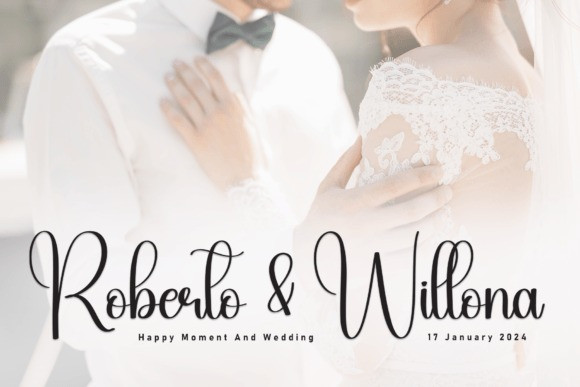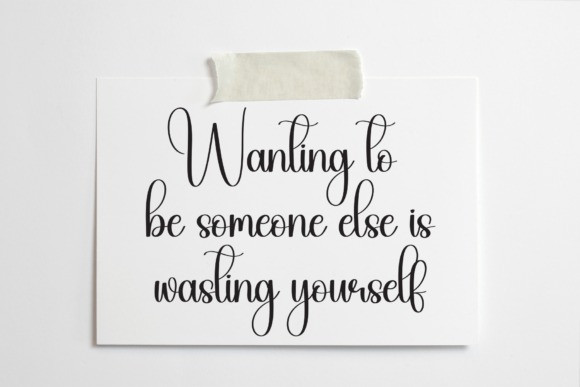
Thankful Script Font
Thankful Script Font is a fun and versatile handwritten font. Whether you’re using it for crafting, digital designing, presentations, or greeting card making, it’s perfect!